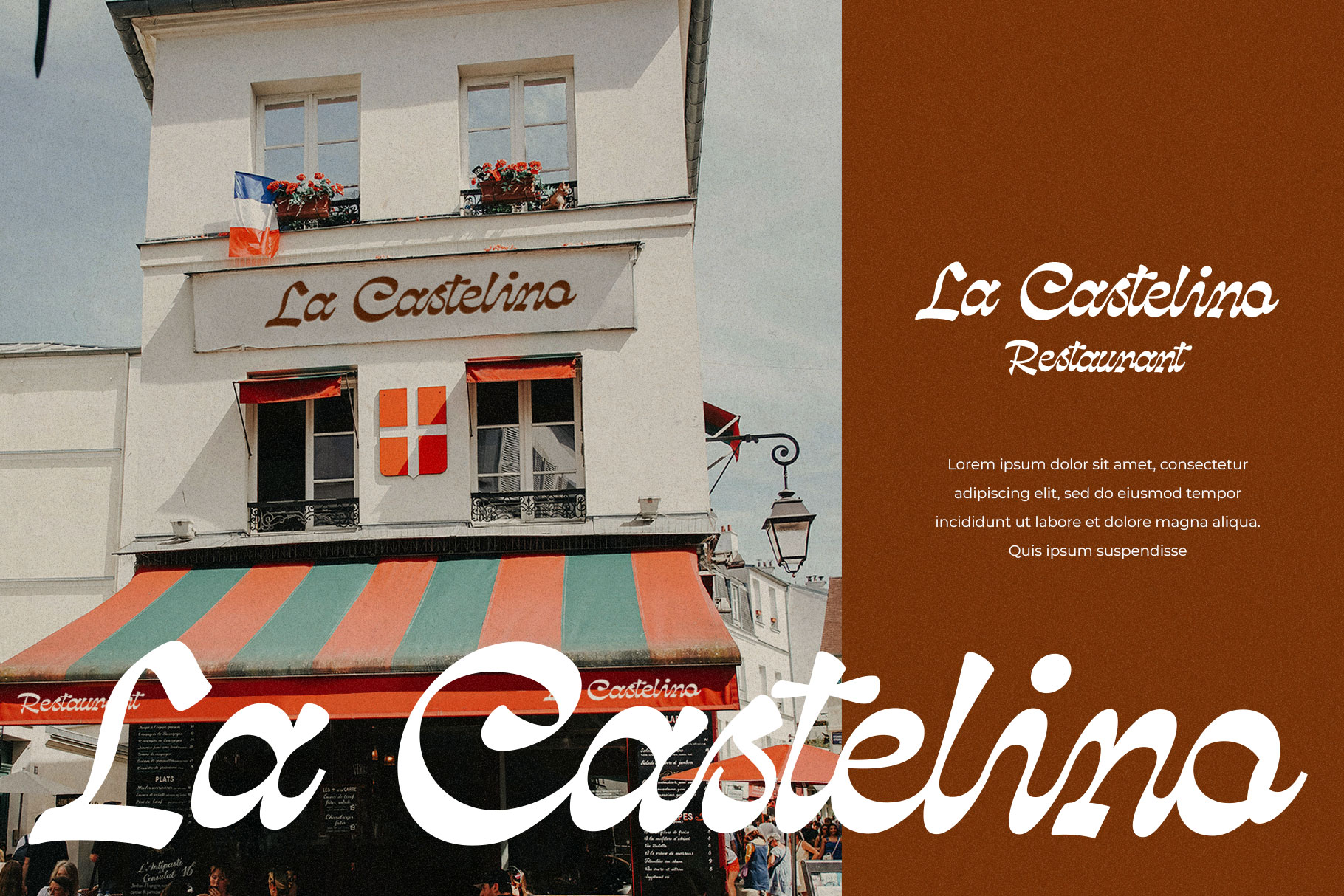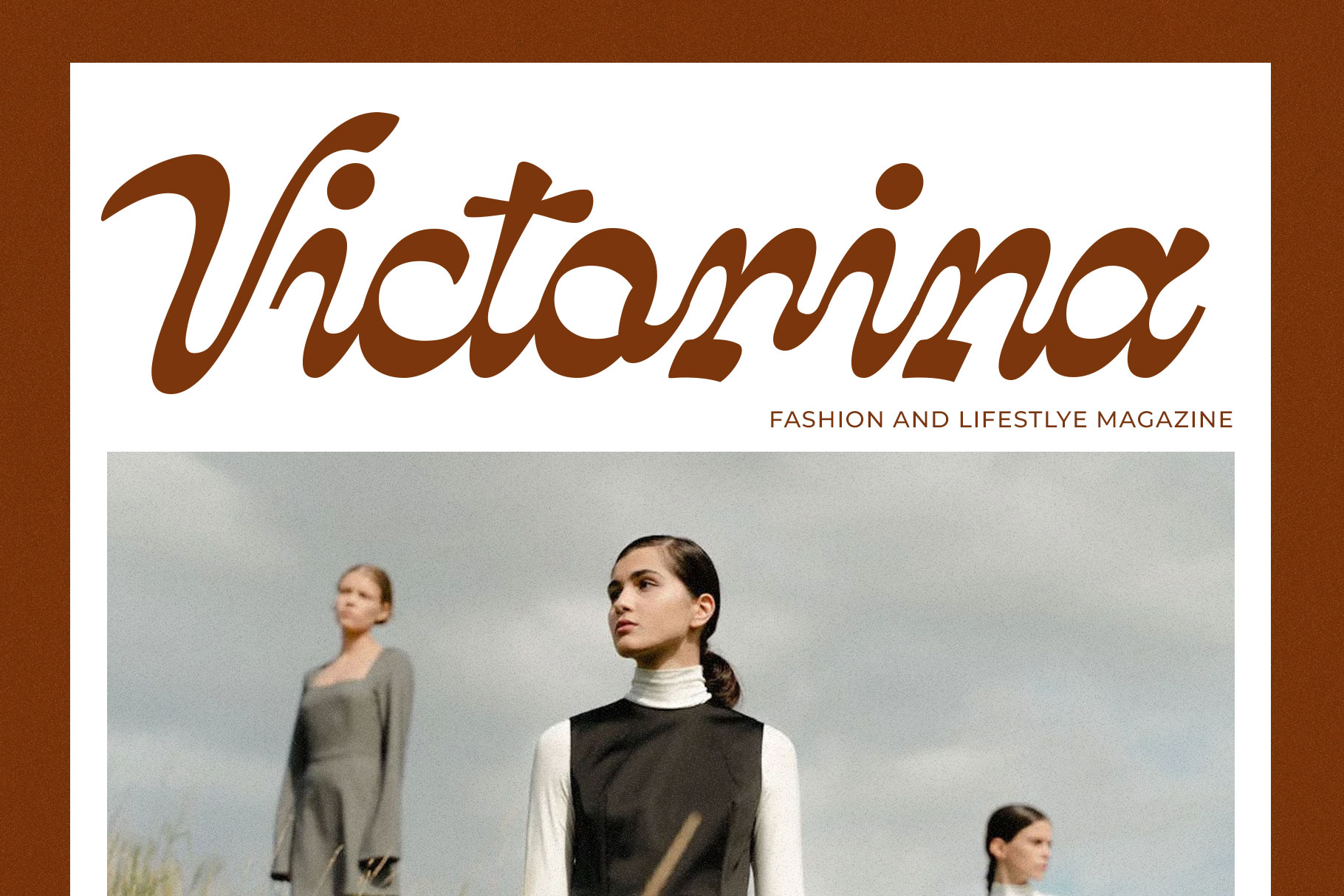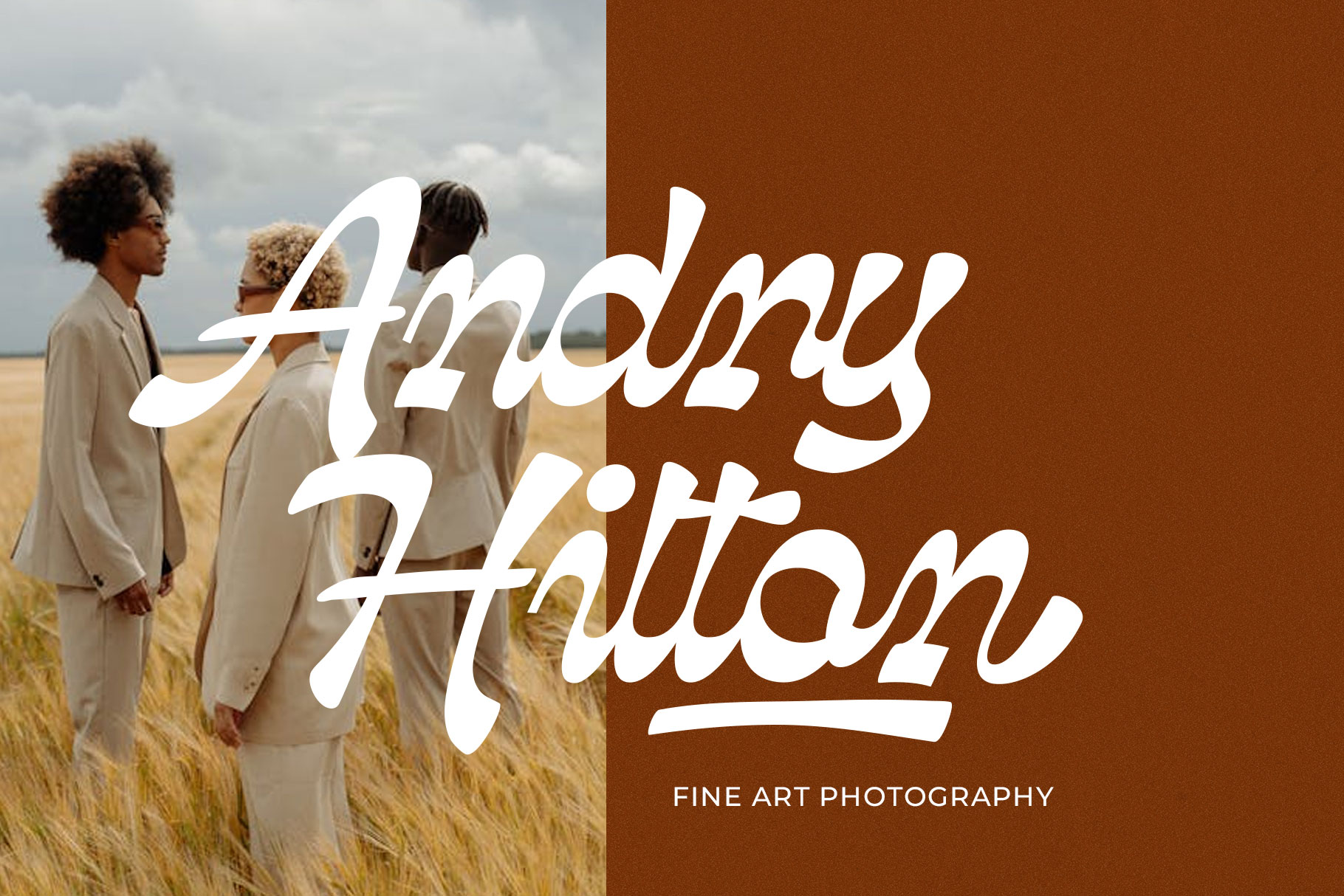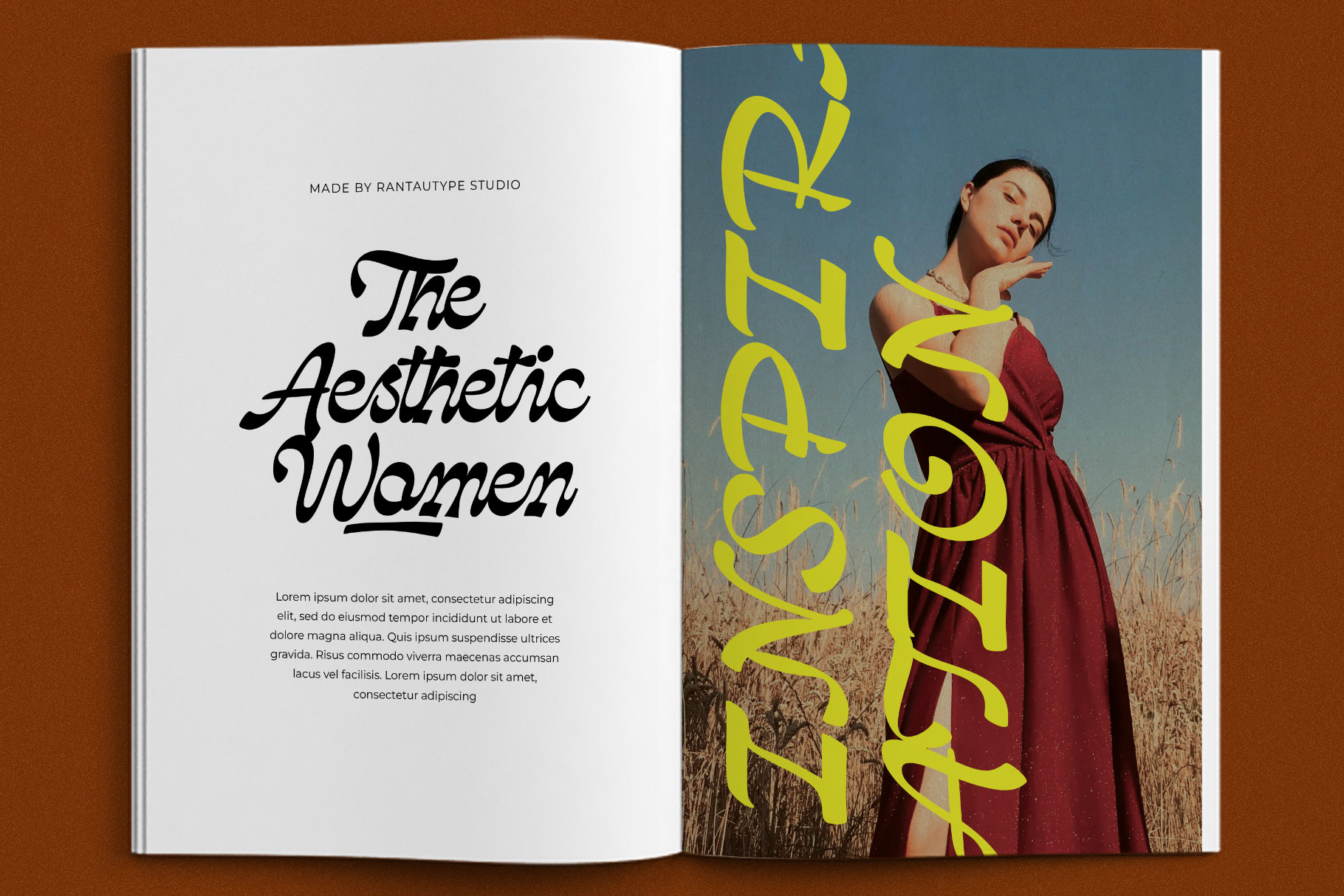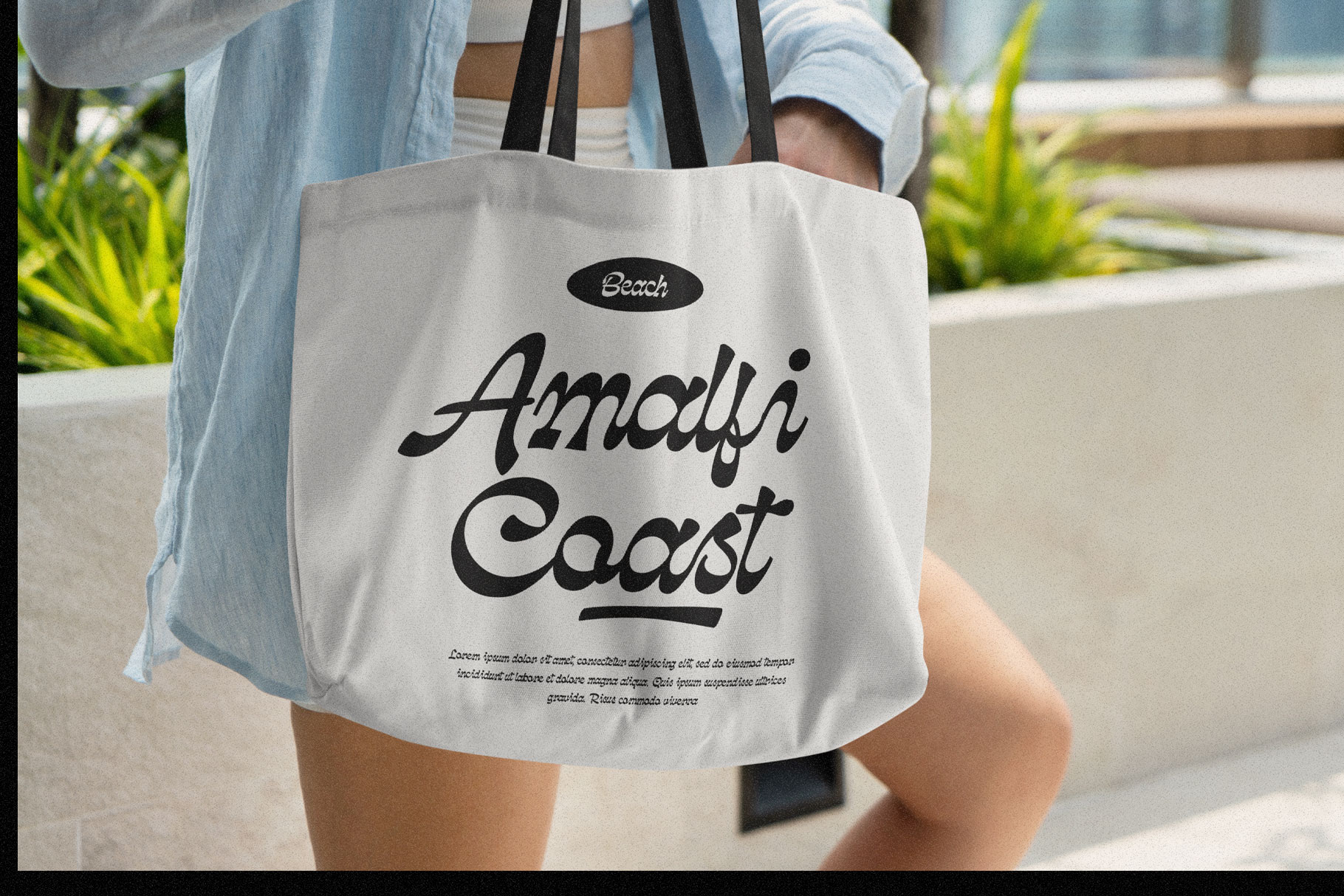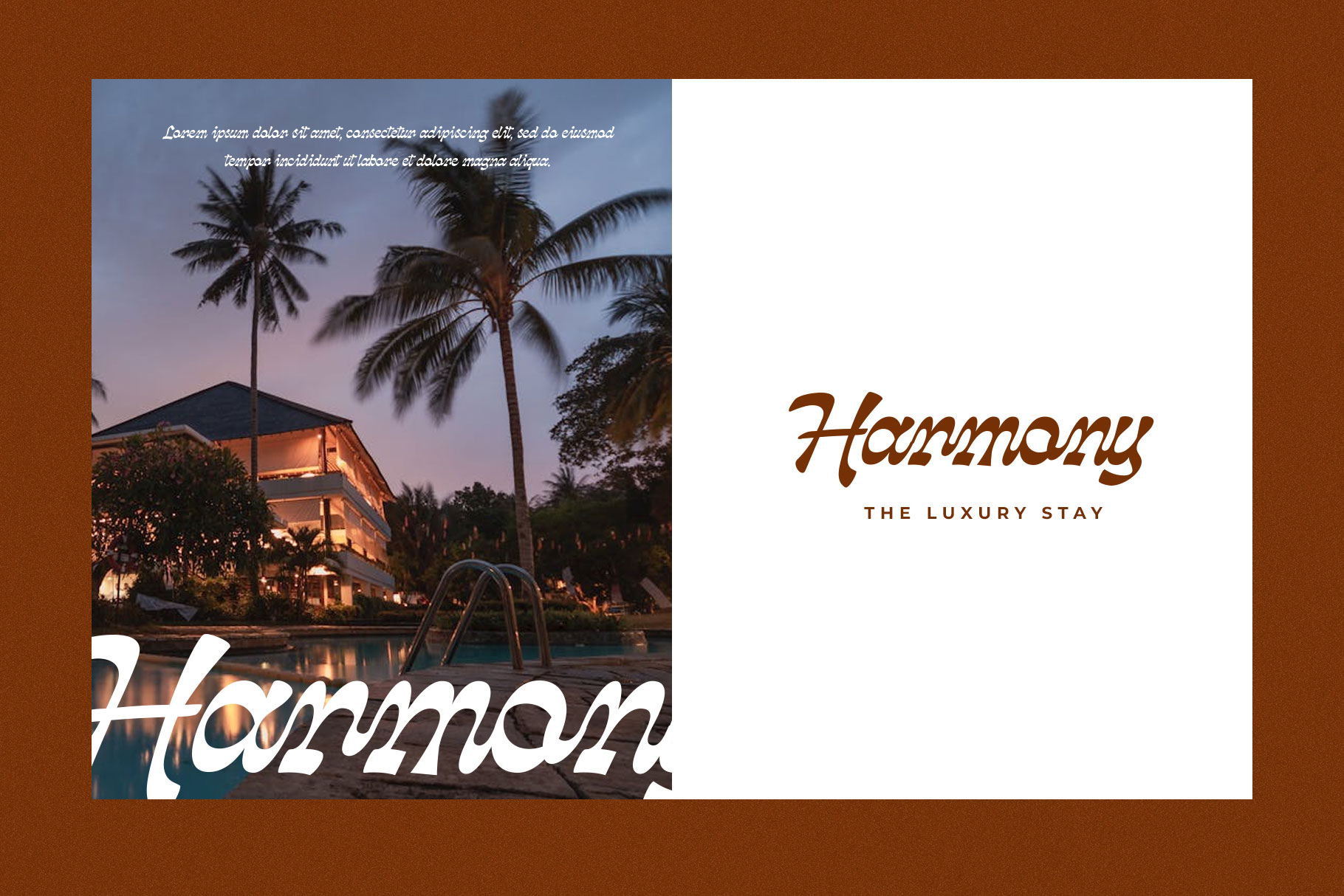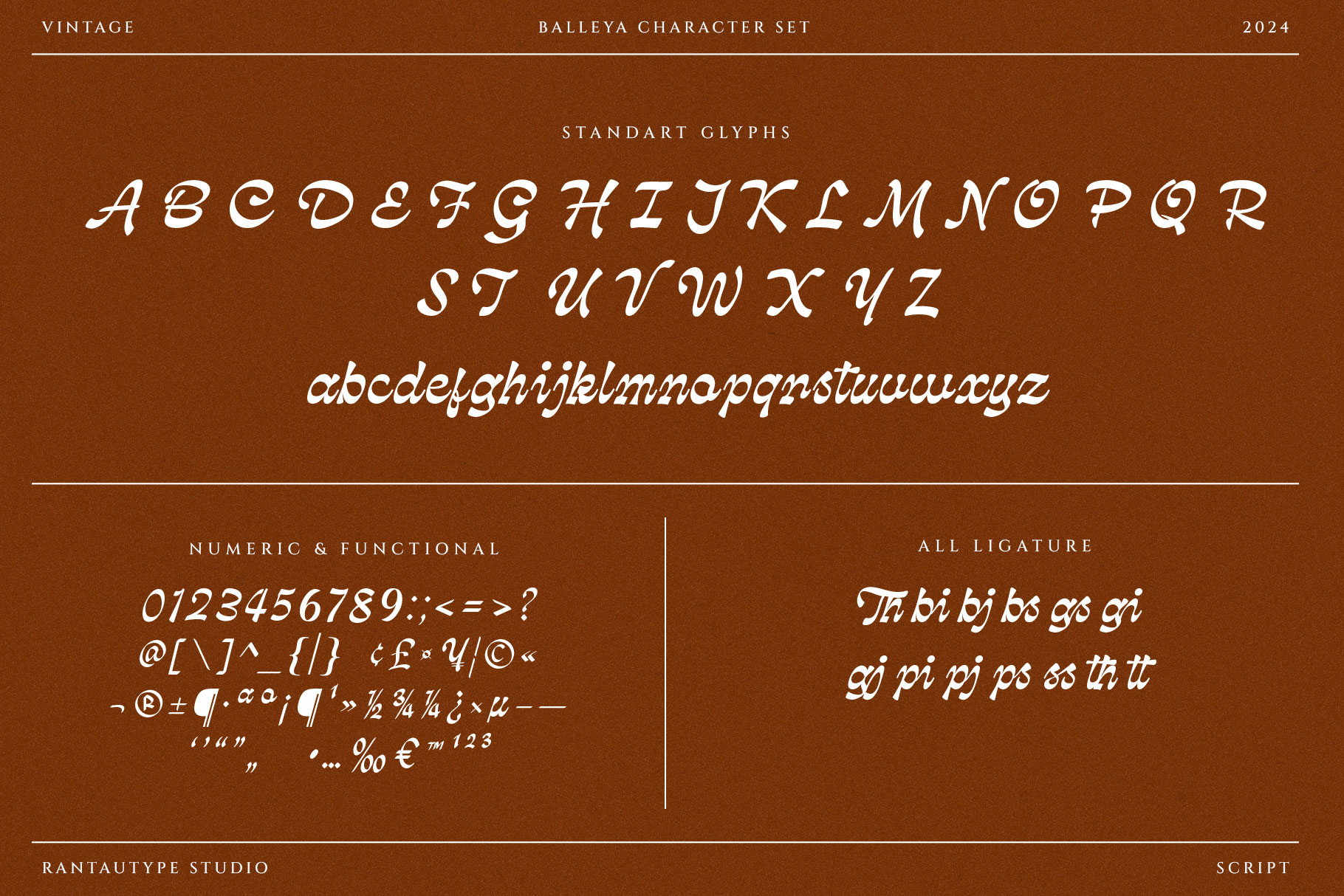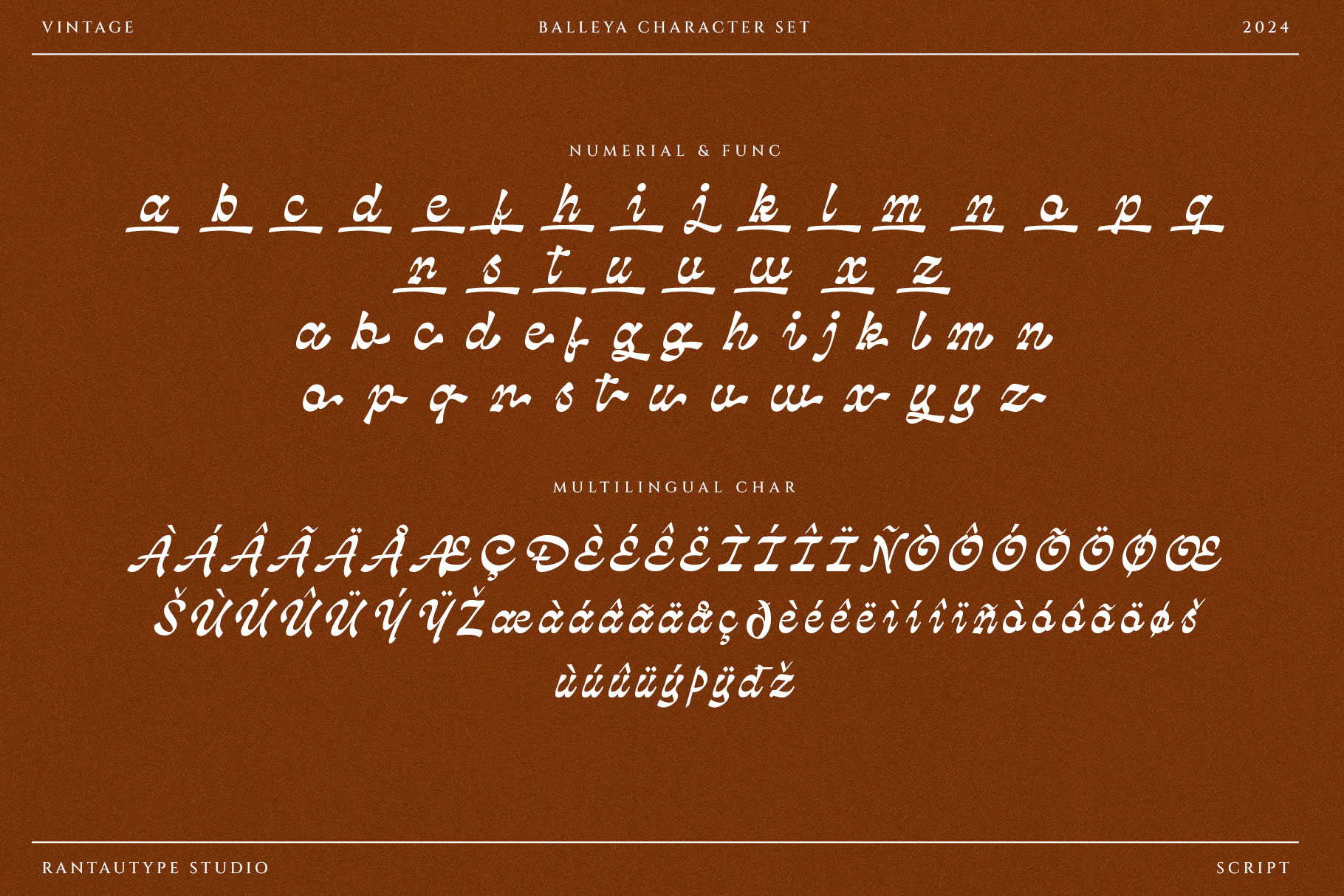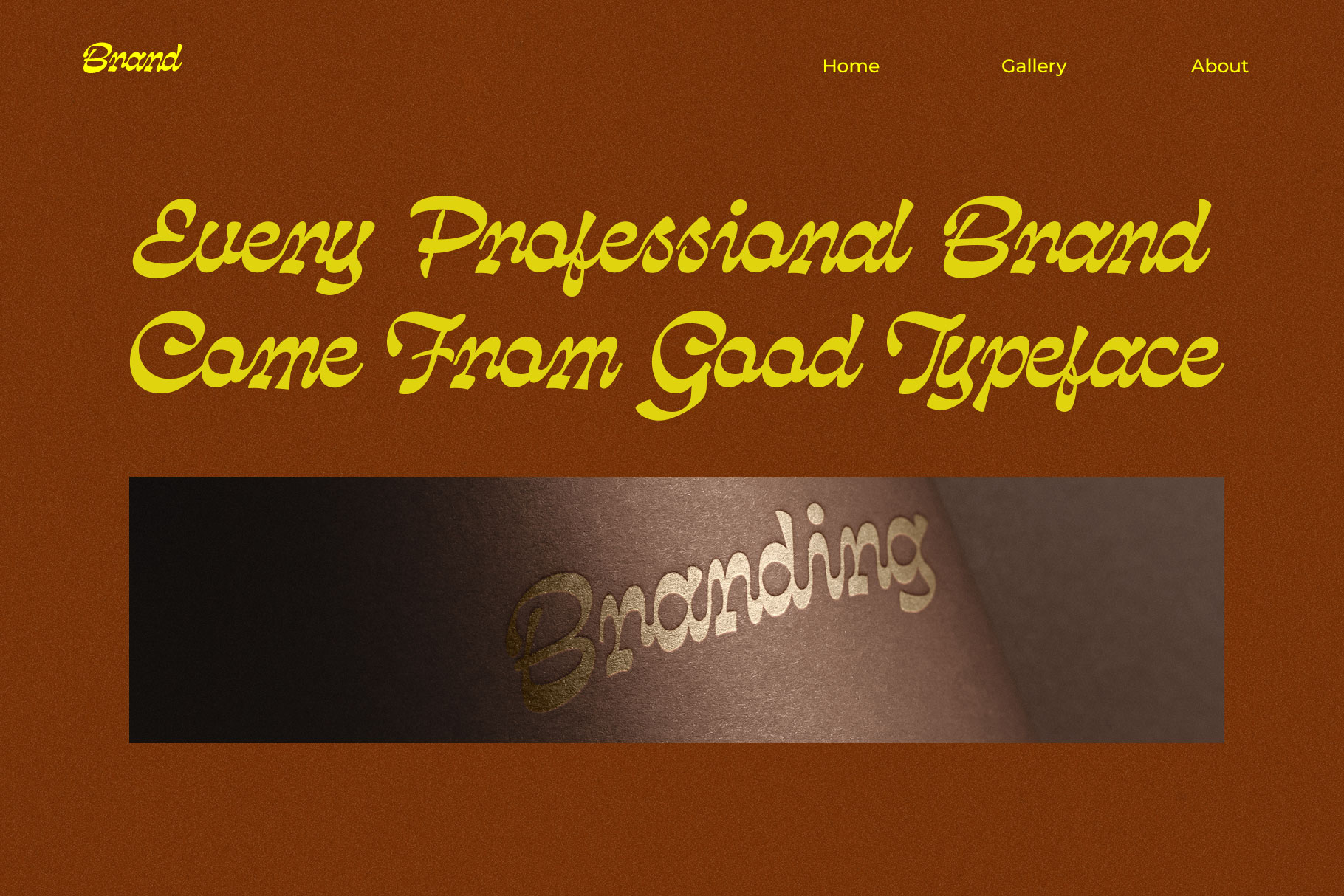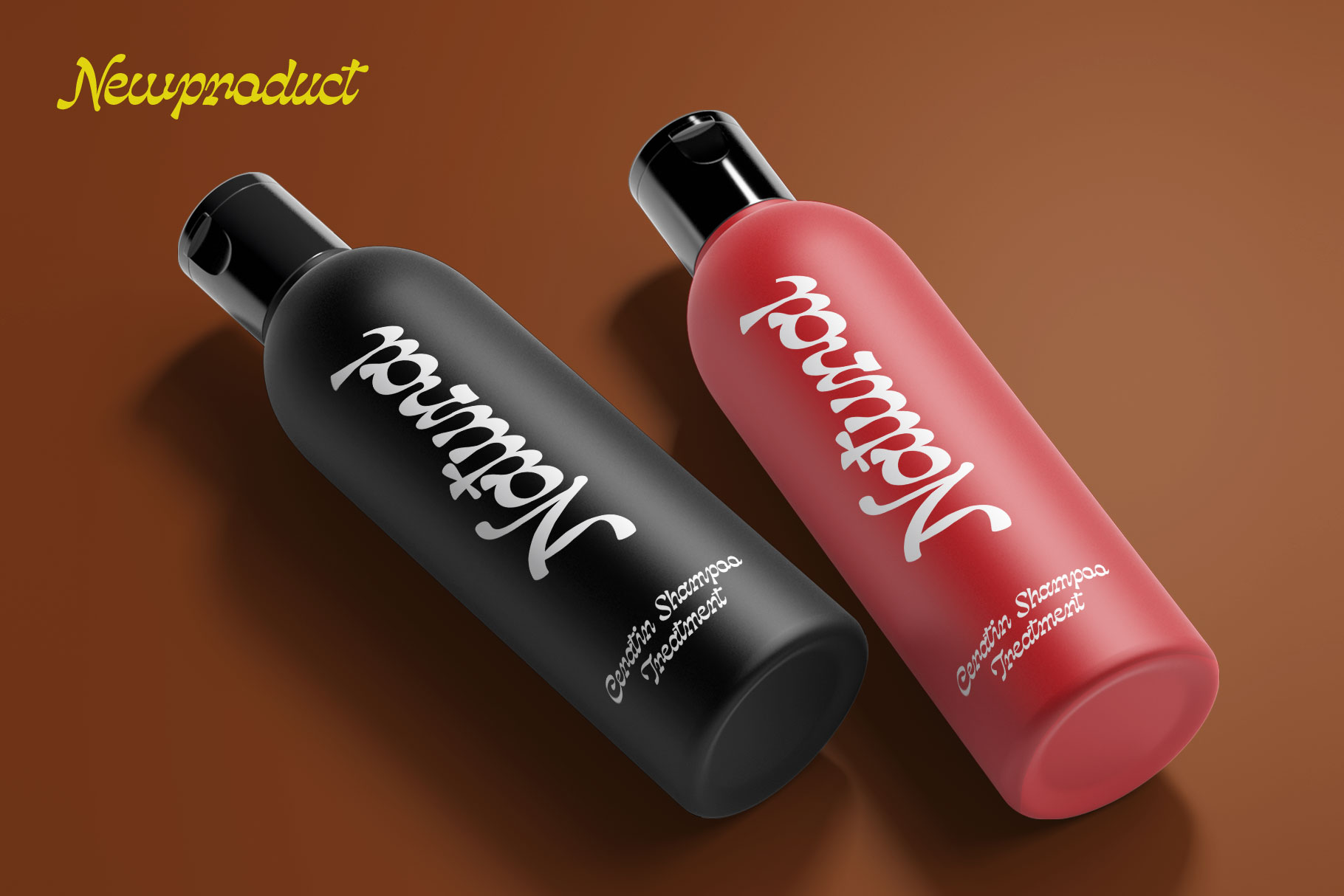
Balleya Vintage Script Font
Balleya is vintage script font made with passion by rantautype studio. Balleya is a beautiful choice for any creative endeavor, creating, modern, chic, lifestyle design such as logotype, title, cover, branding, invitations, wedding designs, display and magazine, social media posts, advertisements, printed quotes, product packaging, corporate brand, product designs, labels, photography, watermarks, special events and any other project with vintage touch.